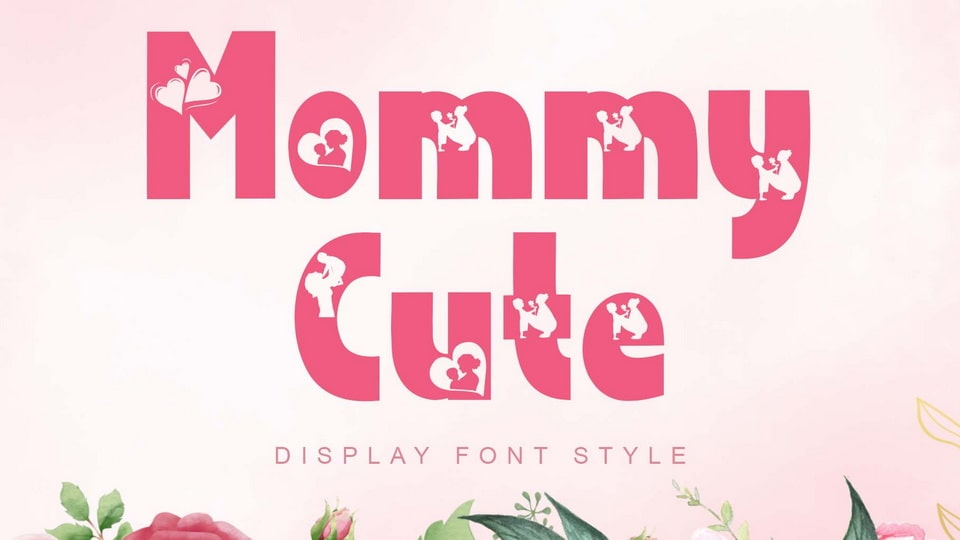
Download Mommy Cute font, a cute and unique display typeface. It is very suitable for posters, mother’s day, summer, spring, holiday, vacations, logos, Christmas, easter, branding and others.